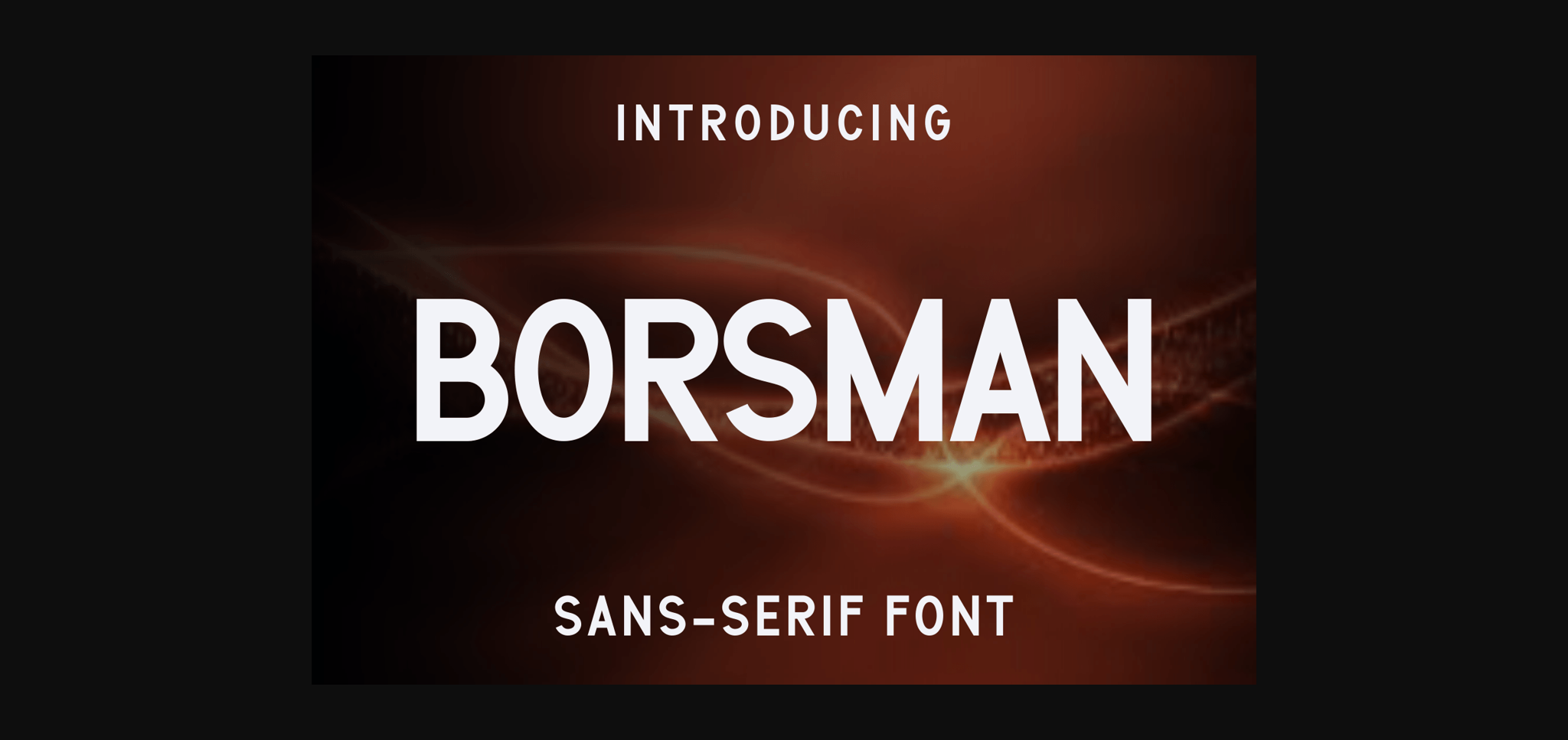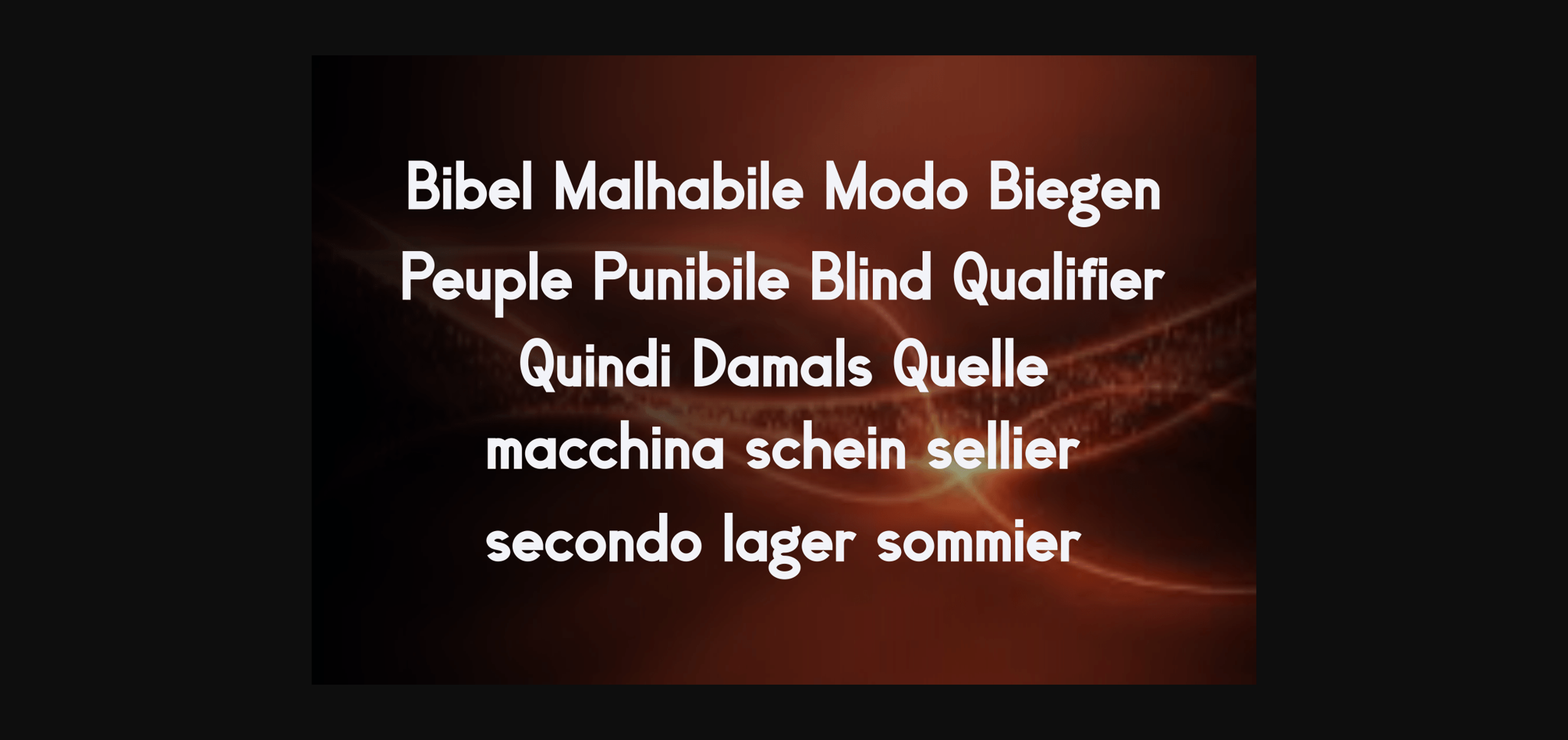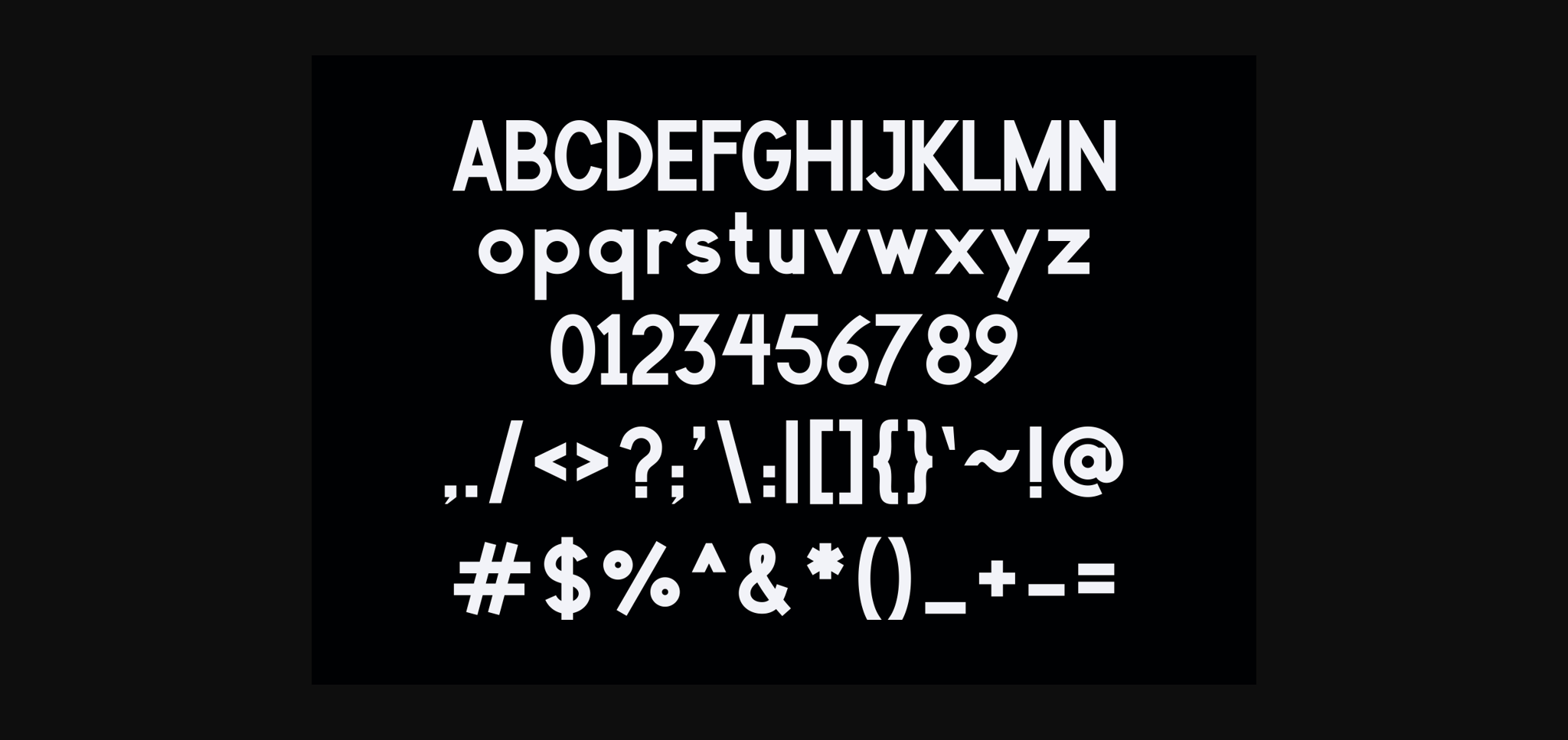
About Borsman Font
Borsman is a modern and neat sans serif font. Incredibly versatile, this font will be suitable for a wide spectrum of applications.